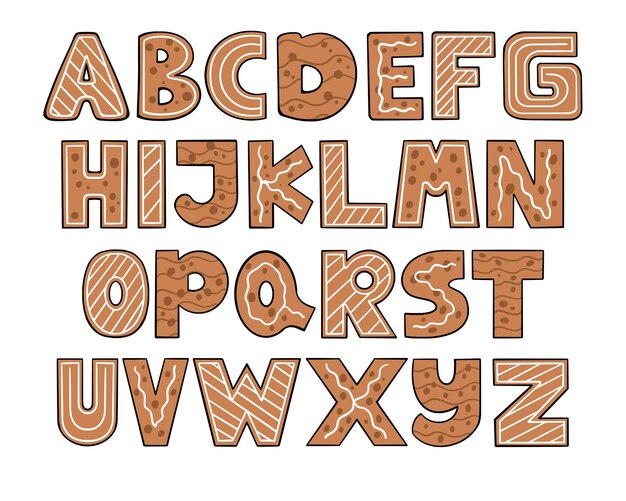
Gingerbread cartoon alphabet Font from letters and numbers in the form of gingerbread with chocolate chips Cookie lettering Isolated objects for books textile cards Vector cartoon style